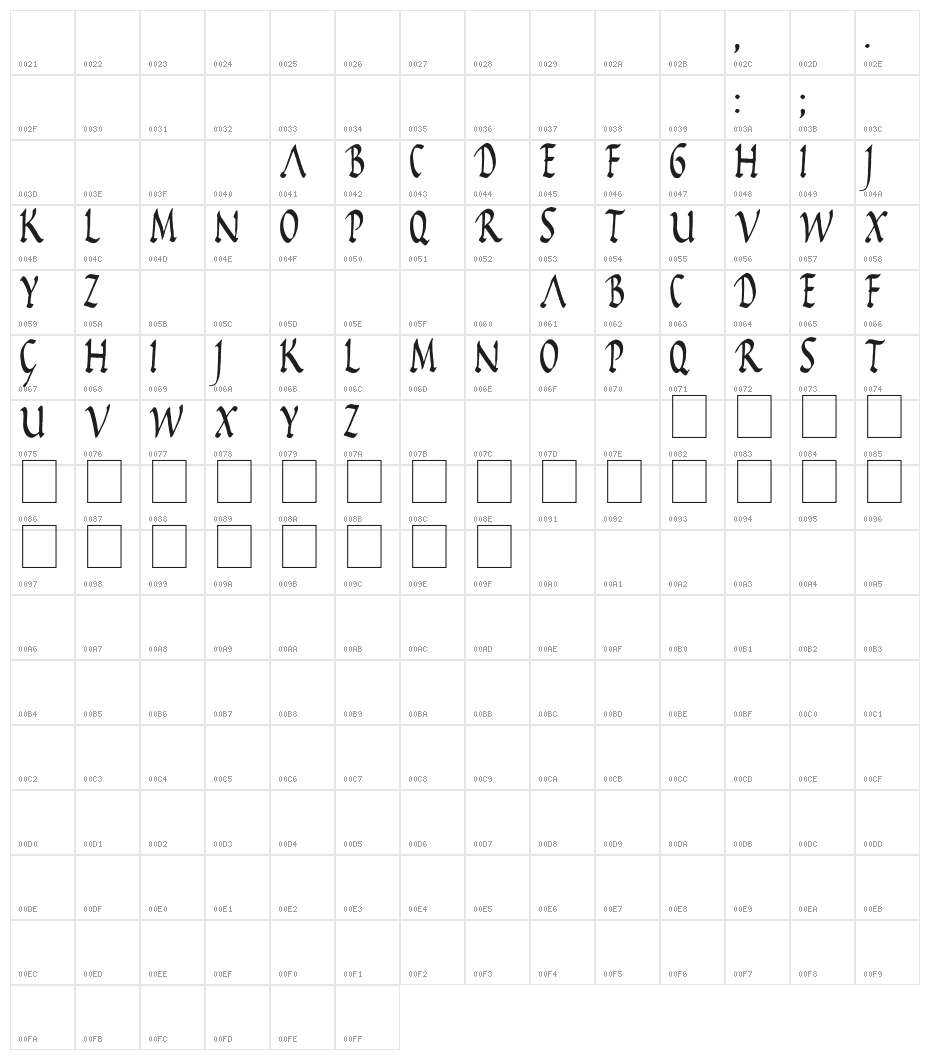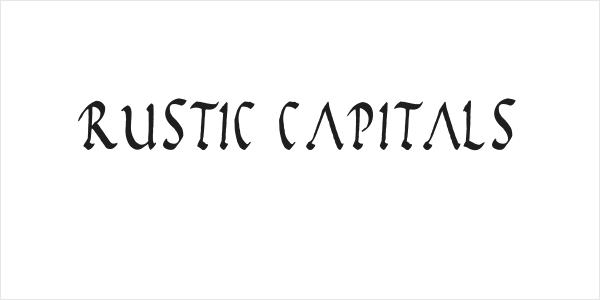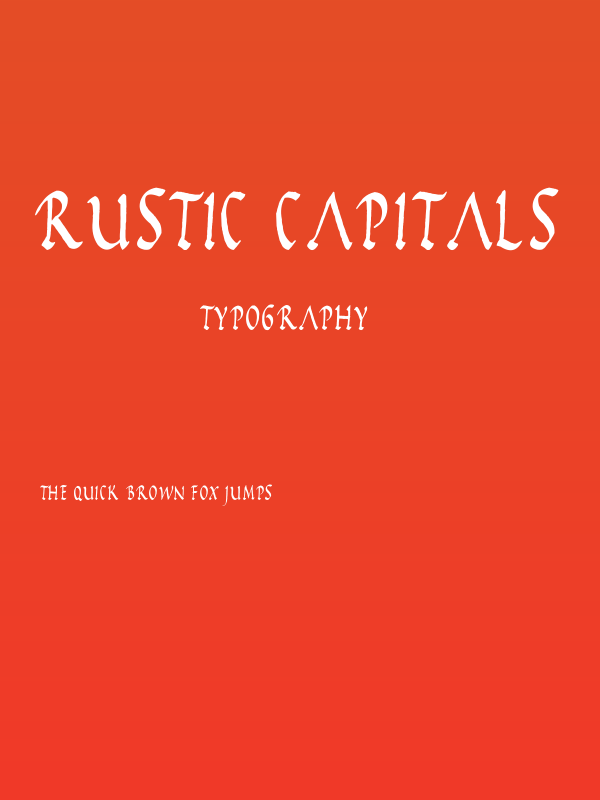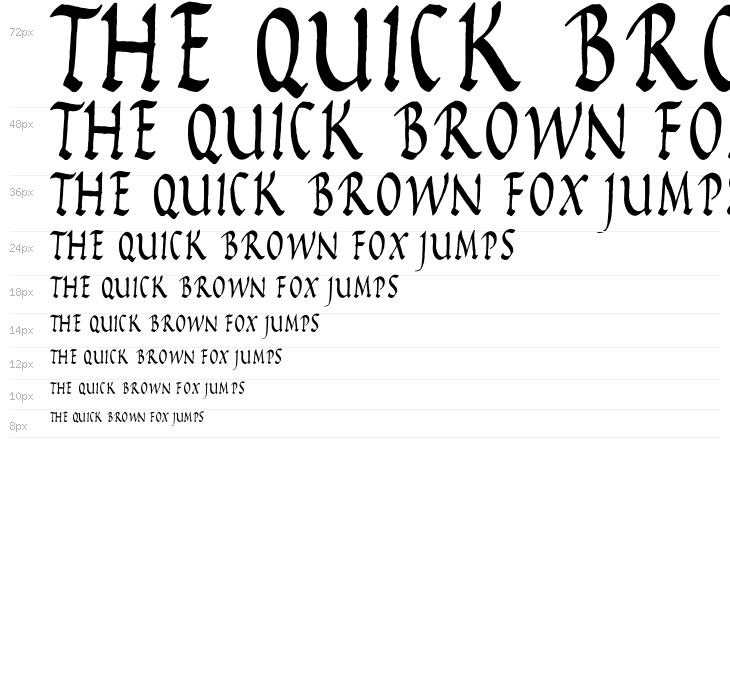
Rustic Capitals Font
Rustic Capitals Description
This font features a distinctive, historical style reminiscent of ancient Roman inscriptions. The characters are bold and angular, with a strong presence and a sense of authority. Each letter is crafted with a unique flair, showcasing sharp serifs and a slightly uneven baseline, which adds to its rustic charm. The uppercase letters are particularly striking, with a consistent height and width that create a cohesive look. The overall appearance is both classic and timeless, suitable for projects that require a touch of elegance and tradition.
| Overall Style | Vintage |
| Proposed Projects | Ideal for historical documents, book covers, or any design needing a classic, authoritative touch. |